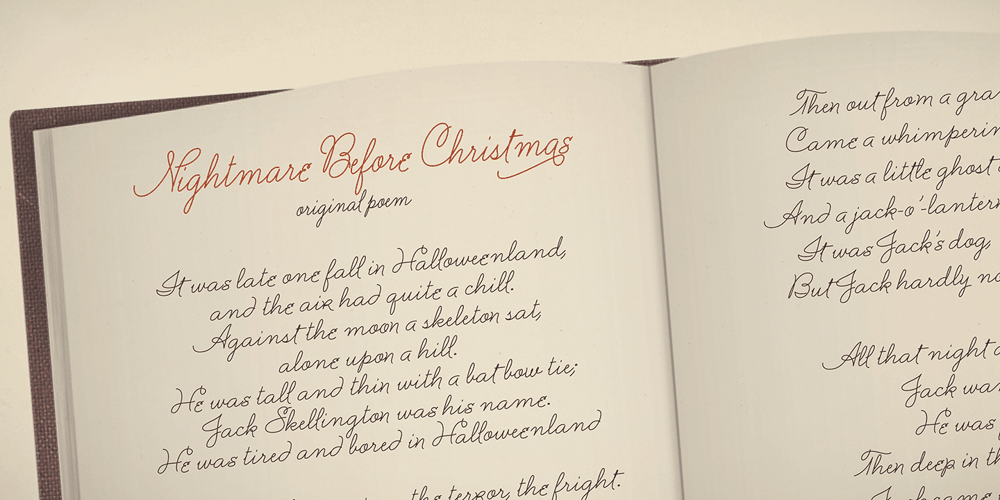
Wonderhand
Wonderhand font
Wonderhand Font Family was designed by Martina Flor and published by Martina Flor. Wonderhand contains 63 styles and family package options. Wonderhand is a new extensive family of scripts designed in seven widths and three weights. It also introduces a third design axis, the slant, presenting an upright 0° cut, a 20° cut and a 40° cut for each. Like written by different hands, each cut has a unique appearance and character. Wonderhand contains two sets of alternate characters and automatic features that imitate the natural flow of handwriting. It is loaded with icons and decorative elements that allow multiple possibilities in layout design.